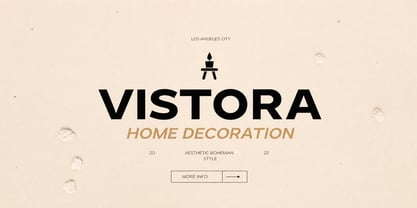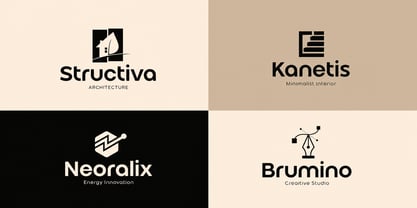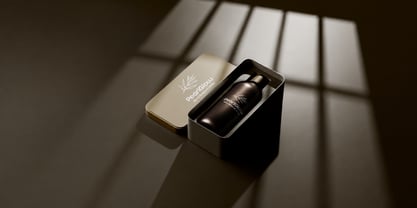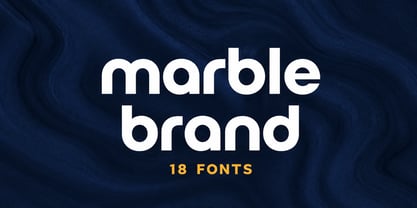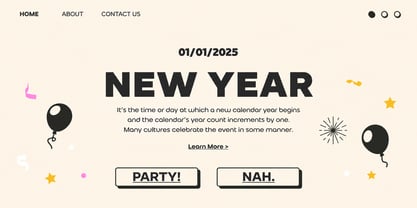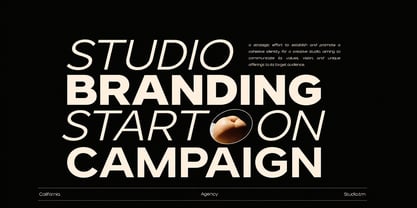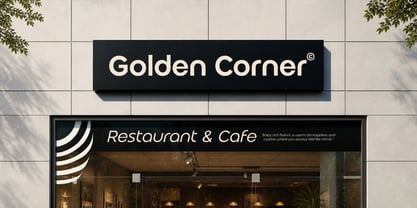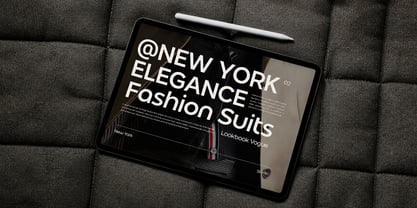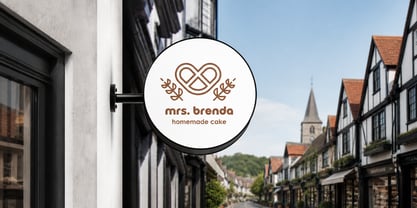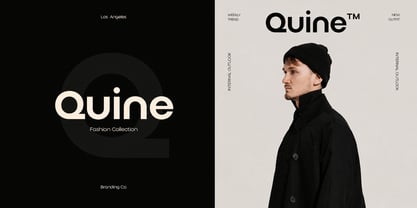
Marble Font: Clean, Modern, and Versatile
Marble is a stylish sans-serif display family font designed for those who want to make a statement. With its geometric letterforms, sharp edges, and high x-height, it combines the best of neo-grotesk aesthetics with a contemporary flair. The minimal stroke contrast gives it a sleek and polished look, making it perfect for modern design projects that need a touch of sophistication.
Whether you're working on branding, logos, packaging, or editorial layouts, Marble is up for the challenge. It shines in headlines, signage, advertisements, and even web design, where clarity and impact are key. From fashion magazines and lookbooks to agency flyers and business presentations, Marble effortlessly adapts to a variety of creative contexts, ensuring your designs stand out from the crowd.
One of Marble's greatest strengths lies in its precise kerning and spacing, ensuring your text is always perfectly balanced and visually striking. While it's not designed for body text, Marble truly excels in titles, headers, and other prominent placements where bold visuals are essential. It’s the go-to typeface for anyone looking to make a lasting impression.